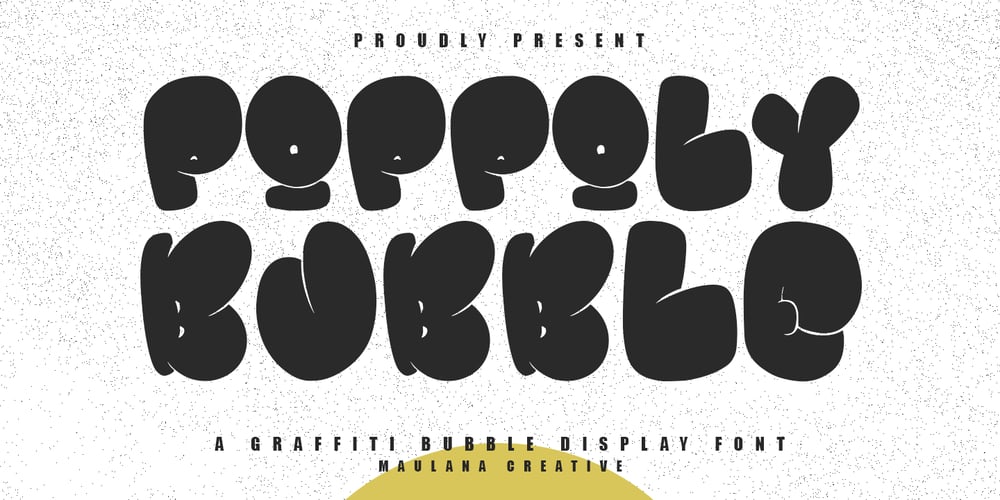
MC Poppoly Font Family was designed by Gilang Maulana and published by Maulana Creative. MC Poppoly contains 1 styles and family package options. Poppoly graffiti display font. With bold stroke, fun character with alternates. To give you an extra creative work. Poppoly graffiti display font support multilingual language. This font is good for logo design, Social media, Movie Titles, Books Titles, a short text even a long text letter and good for your secondary text font with script or serif. Cheers, Maulana Creative